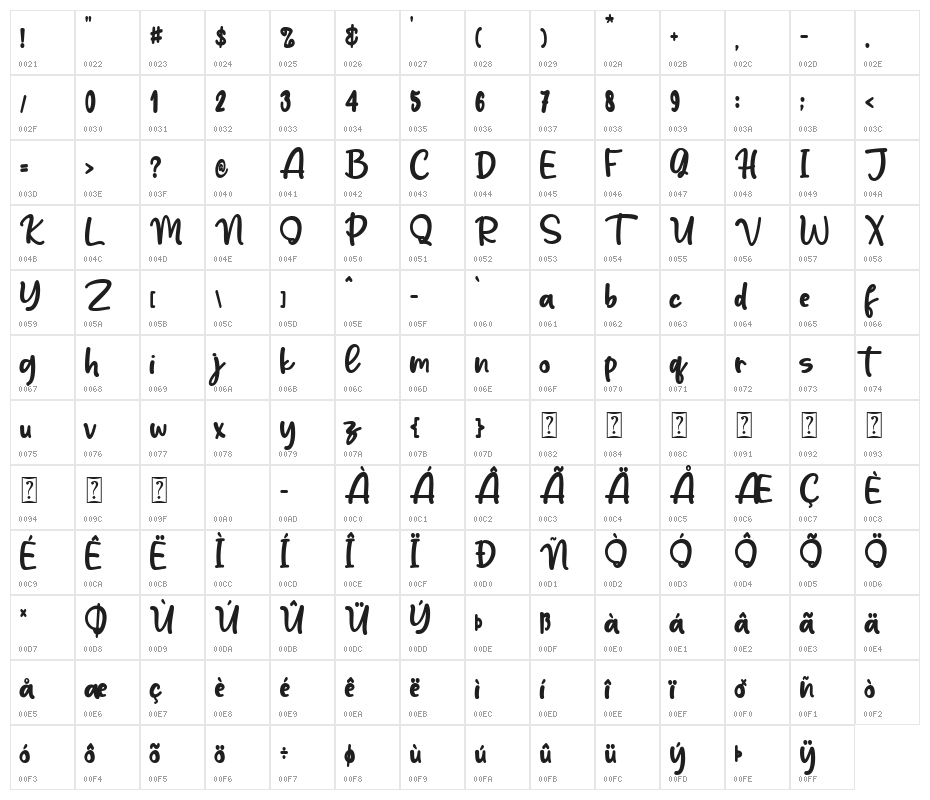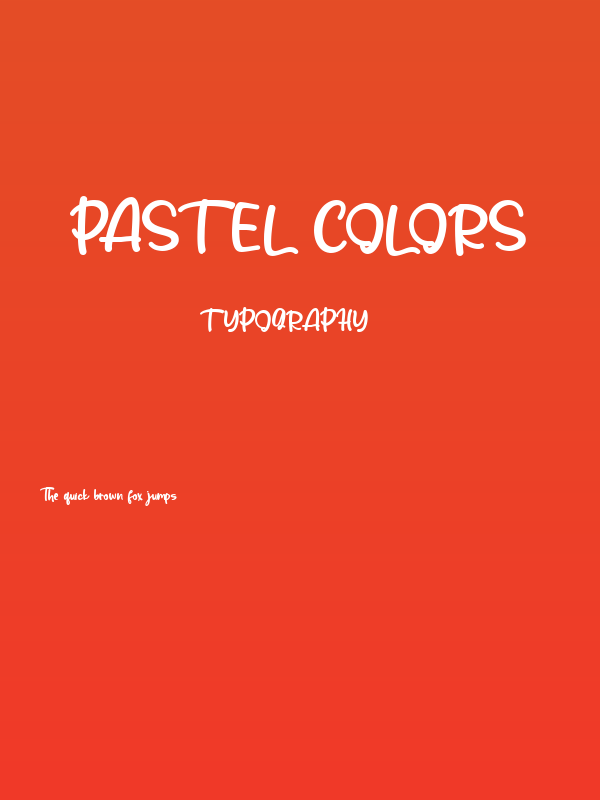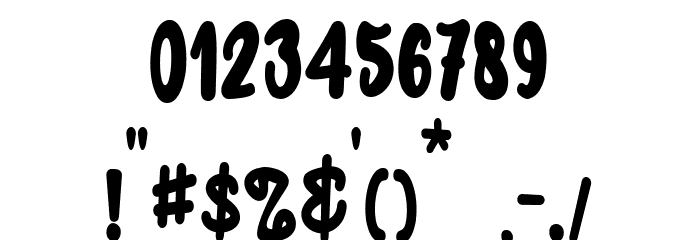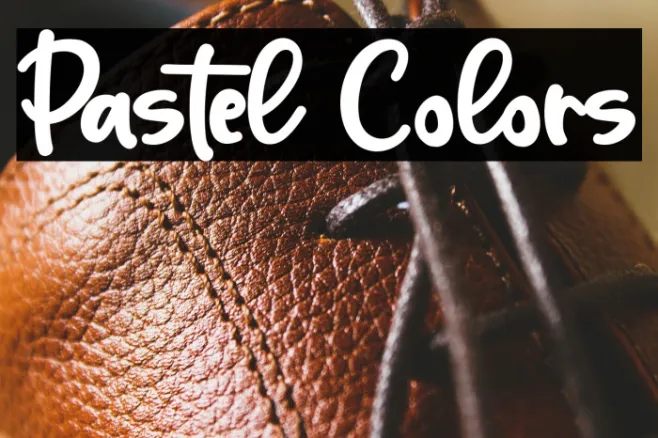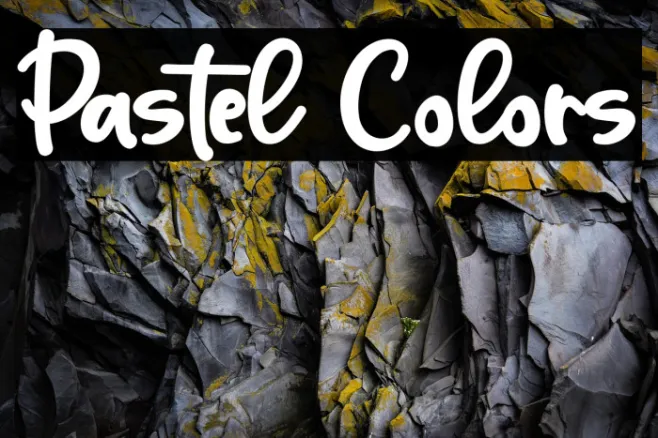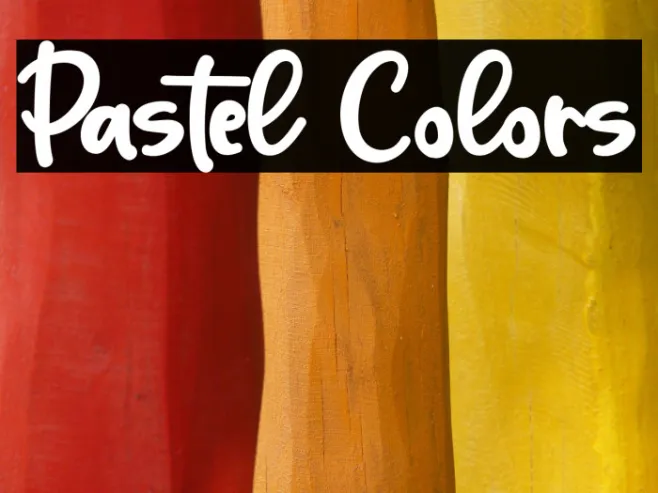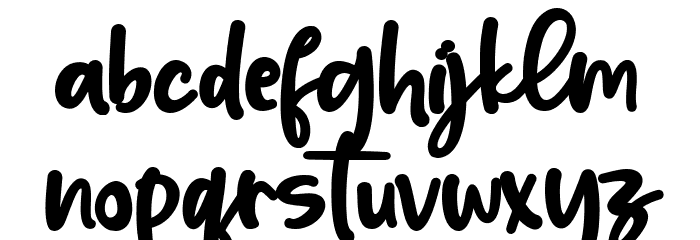
Pastel Colors Font
Pastel Colors Description
This font features a playful and energetic handwritten style, characterized by its bold and rounded letterforms. The uppercase and lowercase letters maintain a consistent flow, with smooth curves and a slightly irregular baseline that adds to its casual charm. The numbers and special characters are equally expressive, complementing the overall aesthetic. This font's thick strokes and dynamic shapes make it highly legible and visually appealing, suitable for a variety of creative applications.
| Overall Style | Playful, Casual |
| Proposed Projects | Ideal for children's book covers, playful branding, greeting cards, and social media graphics. |